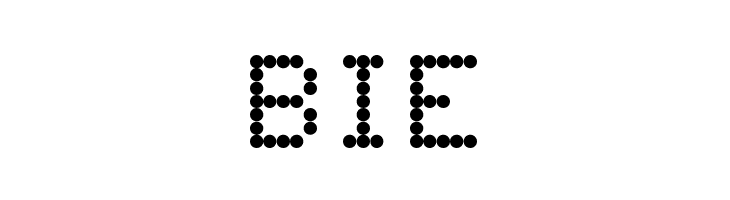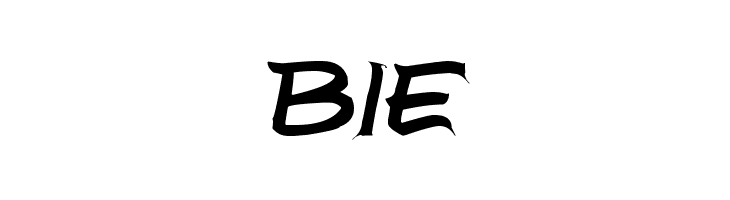
A bold, italic font with a dynamic and playful style.
A playful, bold font with rounded, exaggerated curves and a whimsical style.
A bold, modern sans-serif font with geometric shapes and clean lines.
A bold, expressive script font with dynamic, brush-like strokes.
A playful, handwritten font with tall, narrow letters and medium contrast.
A refined serif font with high contrast and elegant curves, perfect for formal use.
A bold, playful font with a hand-cut, whimsical style.
A bold, playful font with rounded characters and a whimsical style.
A bold, 3D font with a shadow effect, perfect for impactful designs.
A bilingual font combining bold Latin letters with elegant Thai script.
A playful handwritten font with a casual and friendly appearance.
A pixelated font with a retro digital style, ideal for tech-themed designs.
A playful, bold font with a hand-drawn, chalkboard-like style.
A playful and artistic font with checkerboard patterns and whimsical strokes.
A bold, uppercase font styled like board game tiles with numbers.
A decorative font with playful, bold character illustrations.
A decorative font with a cross-stitch, embroidered appearance.
Bold, graphic logos with a streetwear and skateboarding aesthetic.